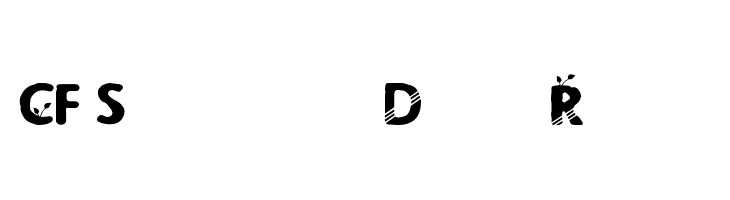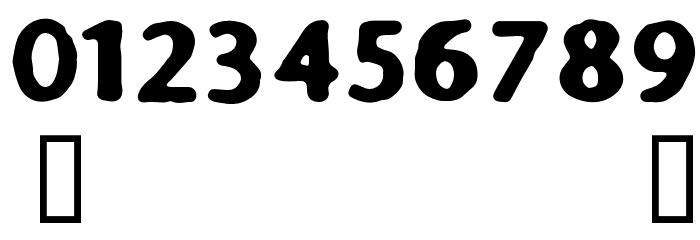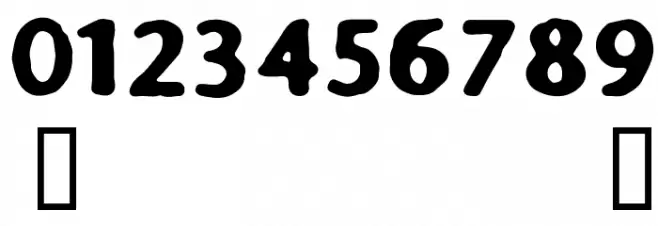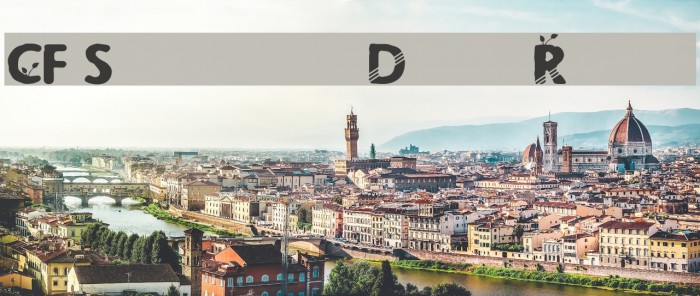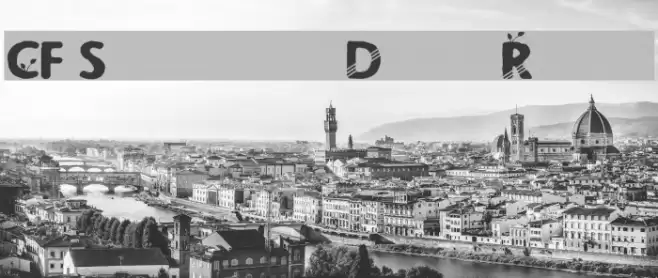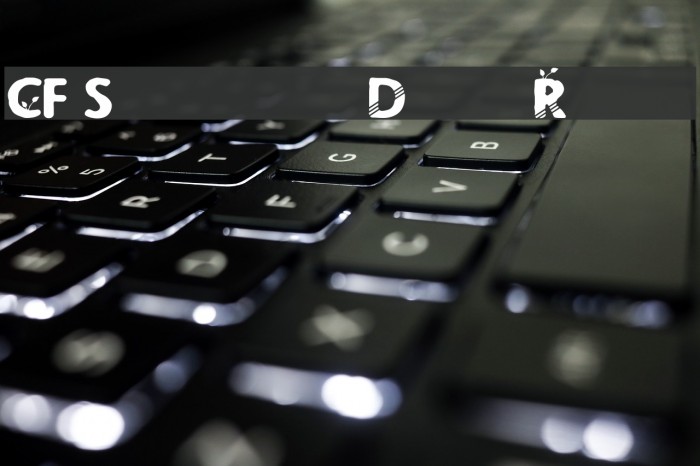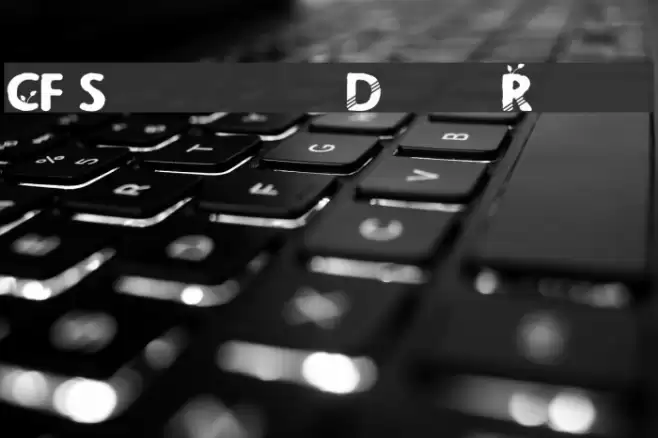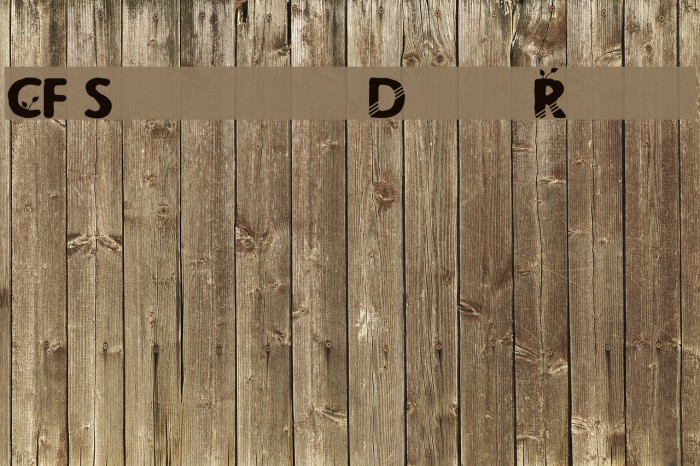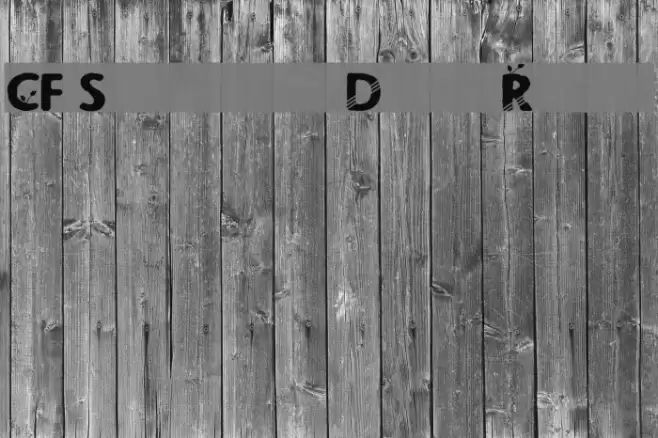
CF Springtime Demo Regular Font
CF Springtime Demo Regular Description
This font features a playful and decorative style, incorporating floral and springtime elements into its design. Each letter is adorned with subtle leaf and petal motifs, creating a lively and whimsical appearance. The characters are bold and rounded, with a consistent thickness that adds to the font's friendly and approachable feel. The decorative elements are integrated seamlessly, enhancing the overall aesthetic without compromising readability. This font is perfect for projects that aim to convey a sense of joy, nature, and creativity.
| Proposed Projects | Ideal for greeting cards, spring-themed posters, children's books, and eco-friendly brand logos. |